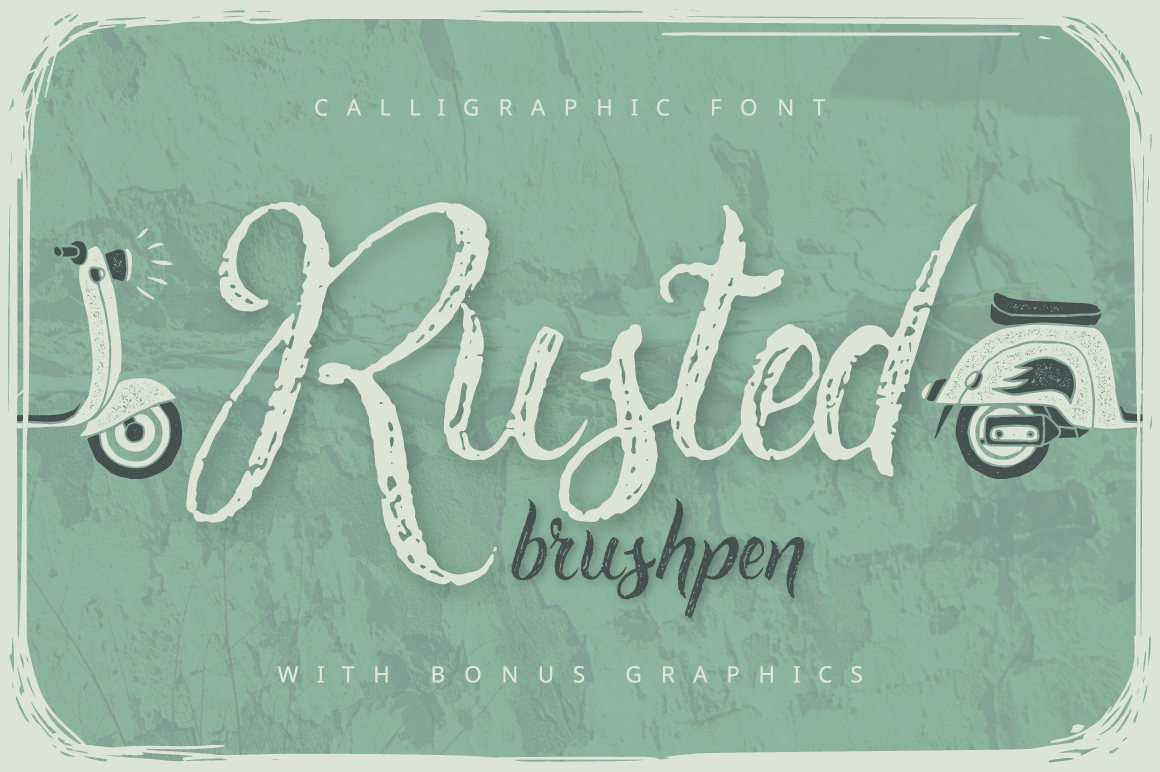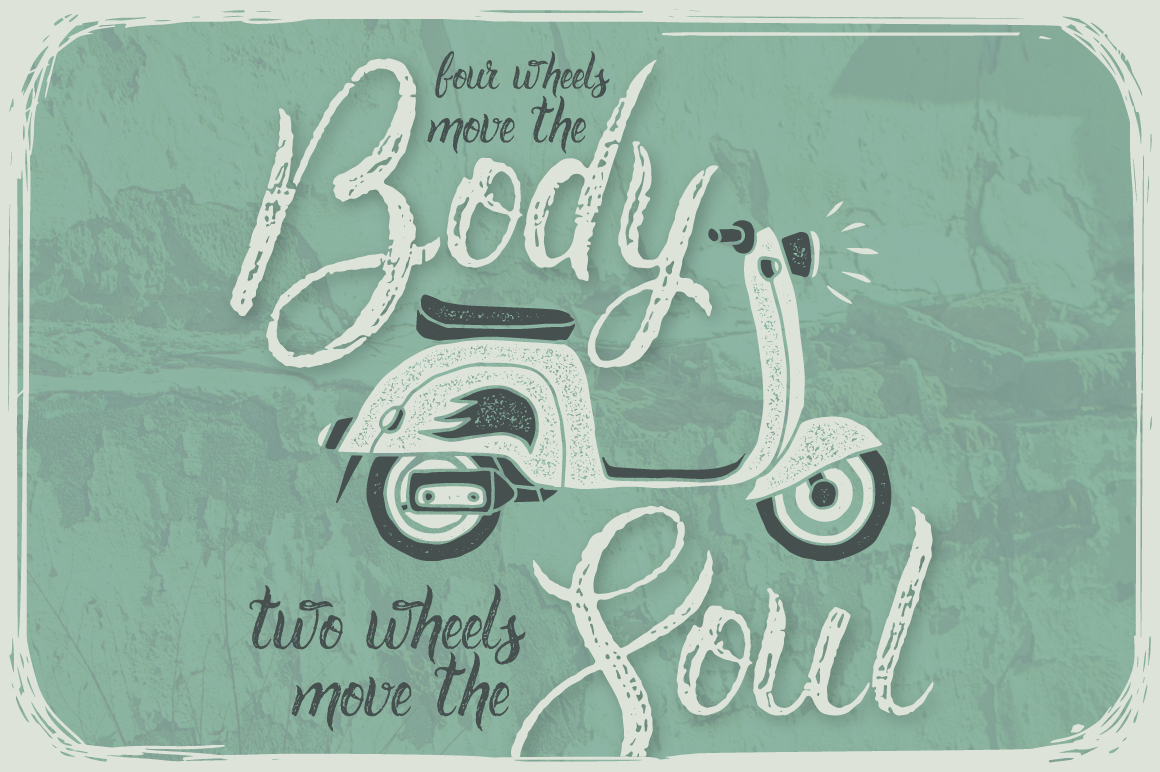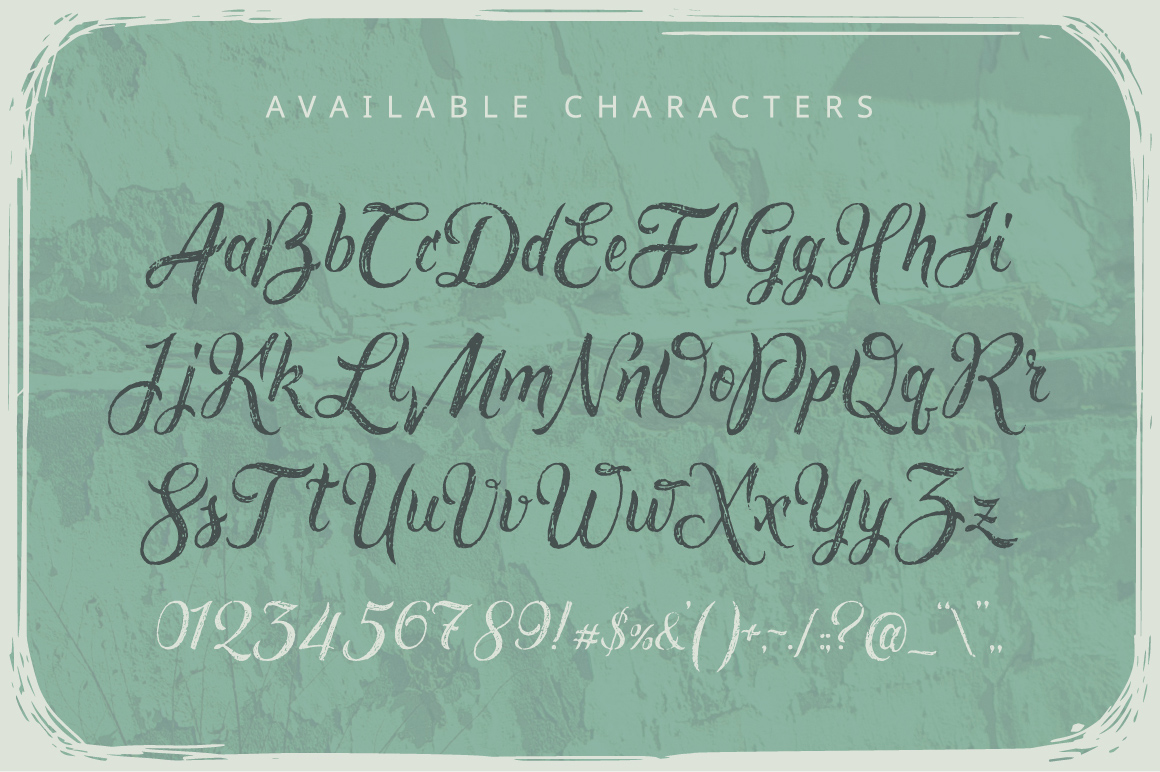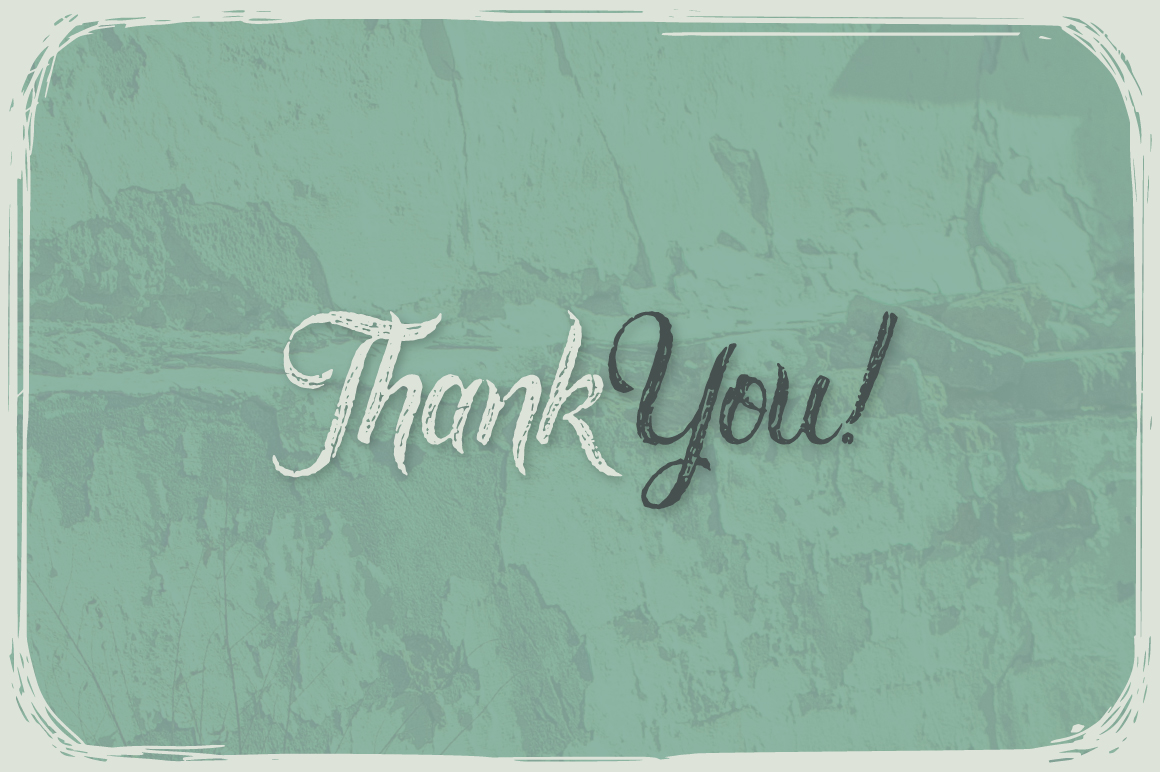
HomeScript FontsRusted Brushpen Font Script Fonts Rusted Brushpen Font FacebookXPinterestWhatsApp Rusted Brushpen Font Poster 2 Rusted Brushpen Font Poster 3 Rusted Brushpen Font Poster 4 About Rusted Brushpen Font Rusted Brushpen is a fancy brush pen with a rough grungy effect. DOWNLOAD ON CREATIVE FABRICAThis font is sold and delivered by Creative Fabrica. Font Canyon may earn a commission if you buy through this link. People also explored Greazty Font Lemonade Font Alive Font Matt Rostine – Signature Script Fonts Vintage Family Font Kayla Font Billkia Font Retro Love Font Wolvirun Font 320 0 TagsRusted Brushpen Font Previous articleMorracle FontNext articleNataly Temper Font LEAVE A REPLY Cancel reply Comment: Please enter your comment! Name:* Please enter your name here Email:* You have entered an incorrect email address! Please enter your email address here Website: Save my name, email, and website in this browser for the next time I comment. Personal Use Free Lanilla Personal Use Free Read more about this font Drip October Font Personal Use Free Read more about this font Wordan Personal Use Free Read more about this font Baby Mollusca Personal Use Free Read more about this font BLOG How to Install and Use Fonts on Windows, macOS, and Web Projects How to Install and Use Fonts on Windows, macOS, and Web Projects Fonts are a crucial part of design and branding. Whether you’re designing a... To increase your work productivity, choose the most readable fonts. Best Fonts for T-Shirt Design – Top 2025 Picks Transform Your Website: Elevate Your Typography with 7 Best Web Font Generators